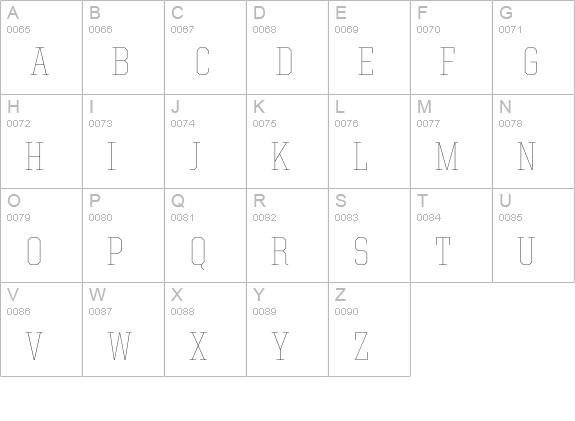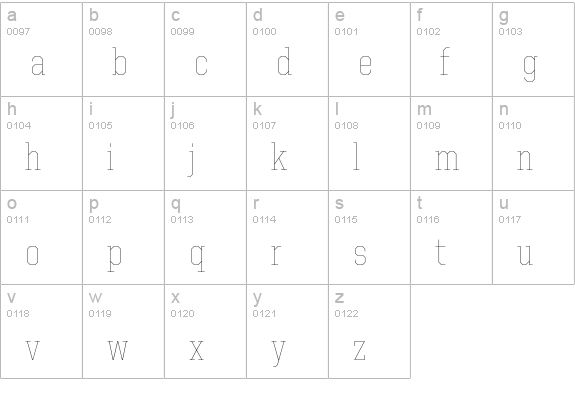
United Serif SemiCond Thin Font Details
United Serif SemiCond Thin is a delicate, low-contrast variant in the United typeface family \xE2\x80\x94 well suited to fashion editorial, minimal branding, and high-contrast display.
United Serif SemiCond Thin is a remarkable typeface that exudes elegance and sophistication. Its delicate lines and slender letterforms make it an ideal choice for projects that demand a refined touch. With a subtle hint of classic styling, this font effortlessly combines traditional elements with a modern twist. The semi-condensed proportions of United Serif SemiCond Thin allow for efficient use of space, making it a versatile choice for both print and digital applications. Whether it's used in headlines, body text, or logos, this font ensures maximum legibility while maintaining a sense of visual harmony. One of the most appealing aspects of United Serif SemiCond Thin is that it is freely available to download at FontsMarket.com. This means that designers, creatives, and typophiles alike can easily access and utilize this stunning typeface without any constraints. The freedom to use this font in personal or commercial projects is a testament to its accessibility and generosity. United Serif SemiCond Thin is the epitome of sophistication and versatility. Its sleek and slender design, combined with its airy spacing and balanced proportions, make it a true gem in the world of typography. Whether you're an experienced designer or just starting your creative journey, this font is sure to inspire and elevate your work to new heights. Embrace the freedom that comes with United Serif SemiCond Thin, and let your creativity flourish.